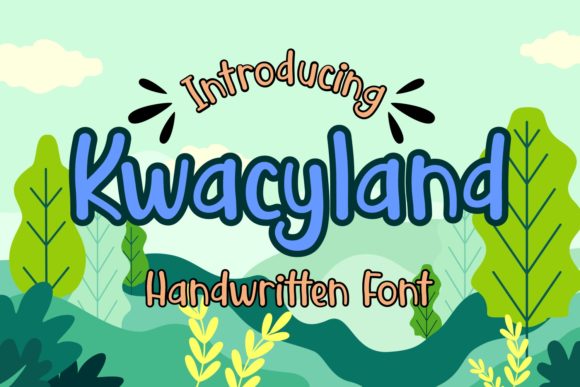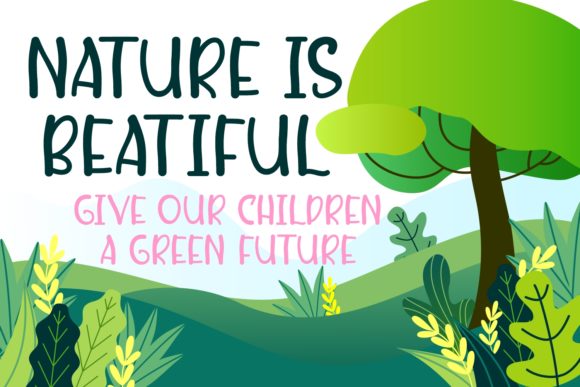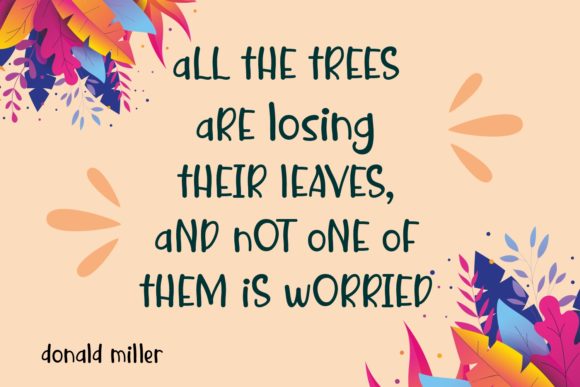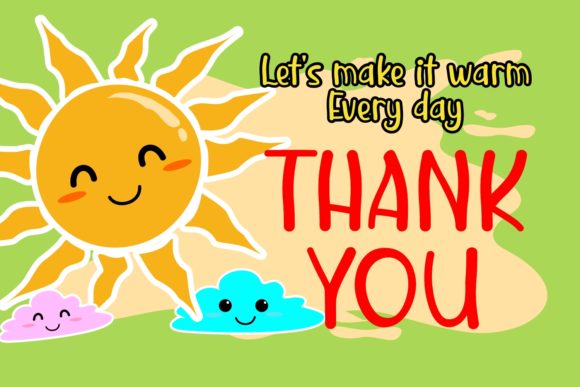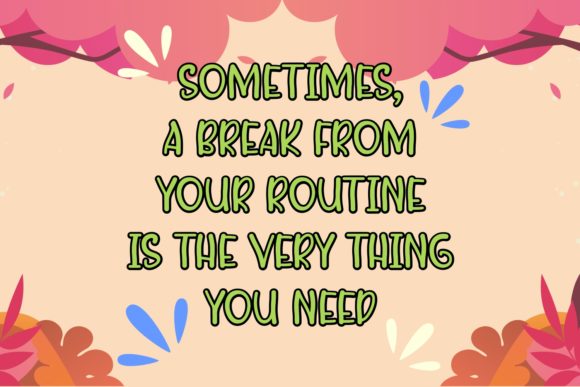
HomeScript FontsKwacyland Font Script Fonts Kwacyland Font FacebookXPinterestWhatsApp Kwacyland Font Poster 2 Kwacyland Font Poster 3 Kwacyland Font Poster 4 Kwacyland Font Poster 5 About Kwacyland Font Kwacyland is a friendly and playful handwritten font with a unique style. DOWNLOAD ON CREATIVE FABRICAThis font is sold and delivered by Creative Fabrica. Font Canyon may earn a commission if you buy through this link. People also explored Bruttney Stamp Carlista Script Lievin Friday Font Glass Font Mentality Font Moonree Font Sperow Font 326 0 TagsKwacyland Font Previous articleSignlia FontNext articleMazie Font LEAVE A REPLY Cancel reply Comment: Please enter your comment! Name:* Please enter your name here Email:* You have entered an incorrect email address! Please enter your email address here Website: Save my name, email, and website in this browser for the next time I comment. Personal Use Free December Christmas Personal Use Free Read more about this font Manhattan Personal Use Free Read more about this font Braindly Personal Use Free Read more about this font Quickline Personal Use Free Read more about this font BLOG Free Fonts Risk: Why Free Fonts Can Be Dangerous for Designers Free Fonts Risk: Why Free Fonts Can Be Dangerous for Designers Using free fonts is a common practice in web and graphic design. However, the... Transform Your Website: Elevate Your Typography with 7 Best Web Font Generators Exploring Font Trends Top 7 Google Fonts Alternatives for Faster and Privacy-Friendly Web Design (2025)